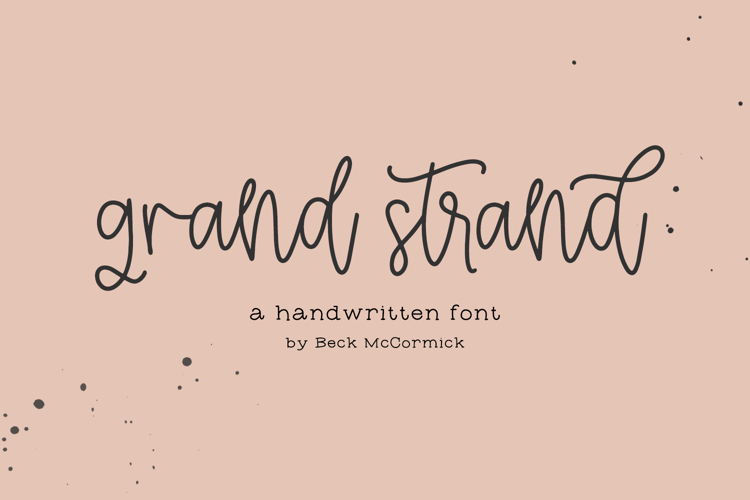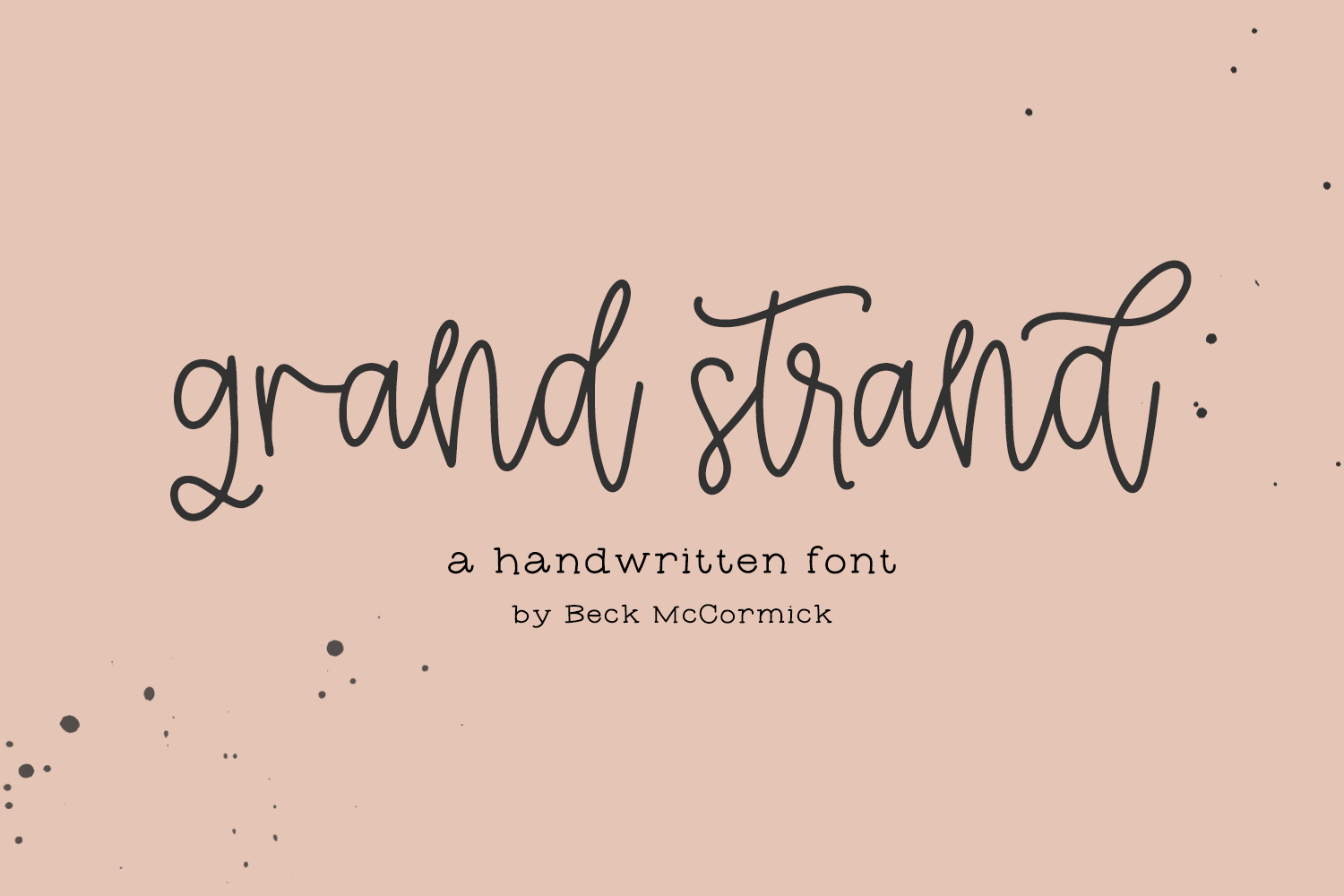
Grand Strand Script
Introducing Grand Strand, a thin monoline handlettered font with extra characters to help you customize the look of your text!
Grand Strand is best for:
- feminine, crafty projects with your Cricut or Silhouette machine, or your SVG design business
- farmhouse decor and crafts
- wedding invitations, wedding favors, or wedding decor
- digital planners & apps like Goodnotes
- website design + website accents, blog design
- feminine graphic tee shirt design & other apparel